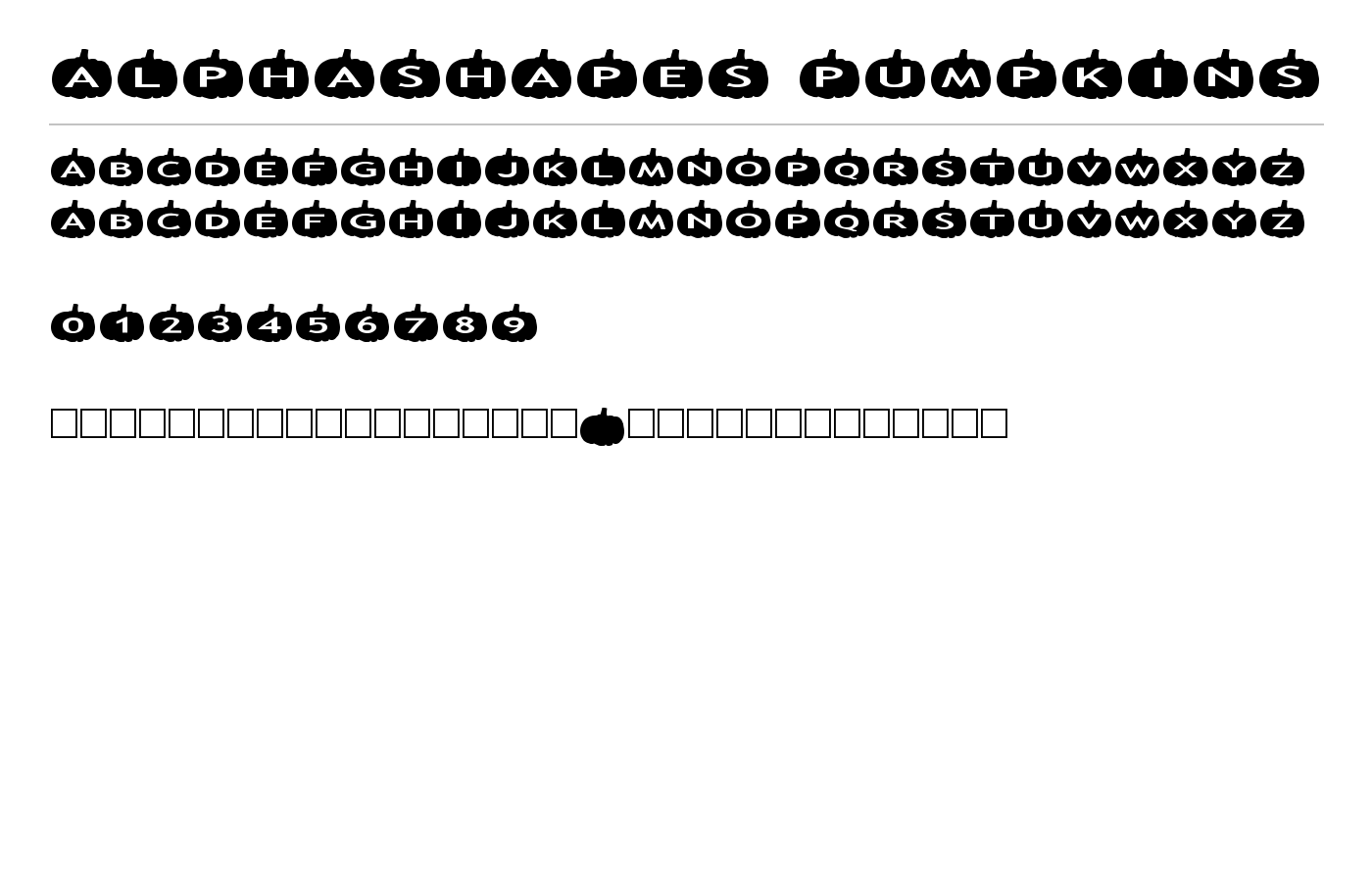
AlphaShapes Pumpkins is a playful display font featuring bold, rounded letters set within solid black pumpkin silhouettes, creating a fun, festive vibe perfect for Halloween-themed designs. Its uppercase-only style with clear, legible characters and numeric figures makes it ideal for eye-catching headlines, party invitations, seasonal branding, and decorative packaging where a whimsical, holiday spirit is desired.
AlphaShapes pumpkins Font